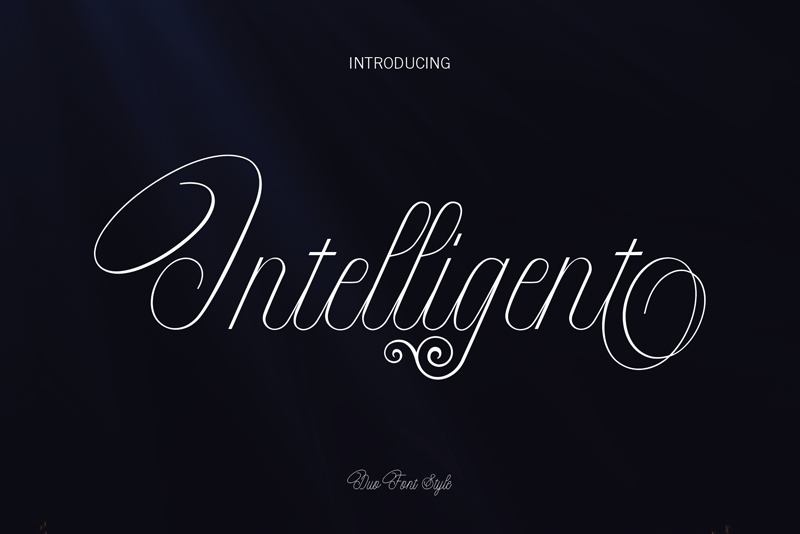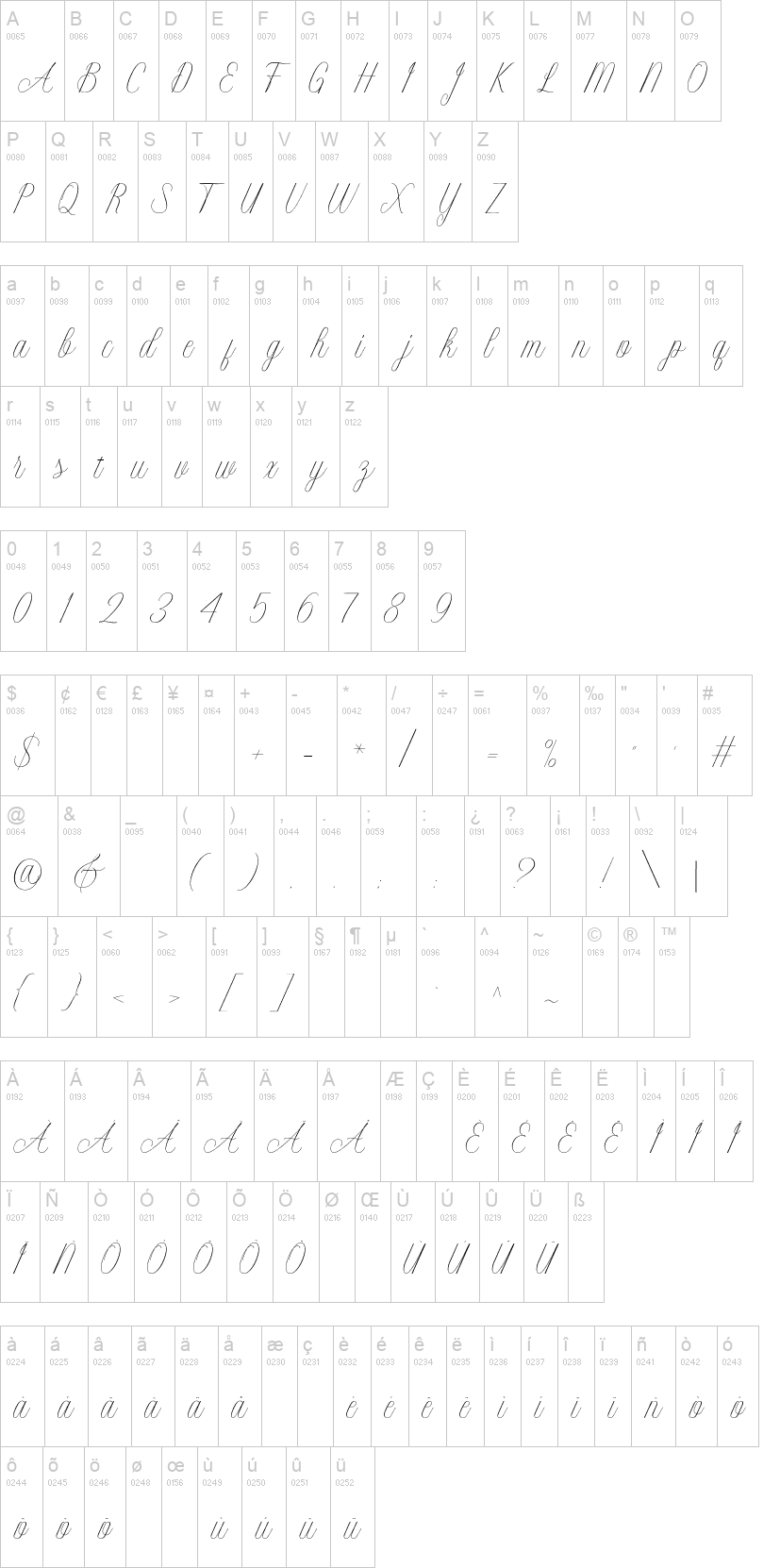
Intel line.ttfNote of the authorIntelligent Modern. This font is handwritten, and has a modern and unique calligraphic form, the writing style is very natural.